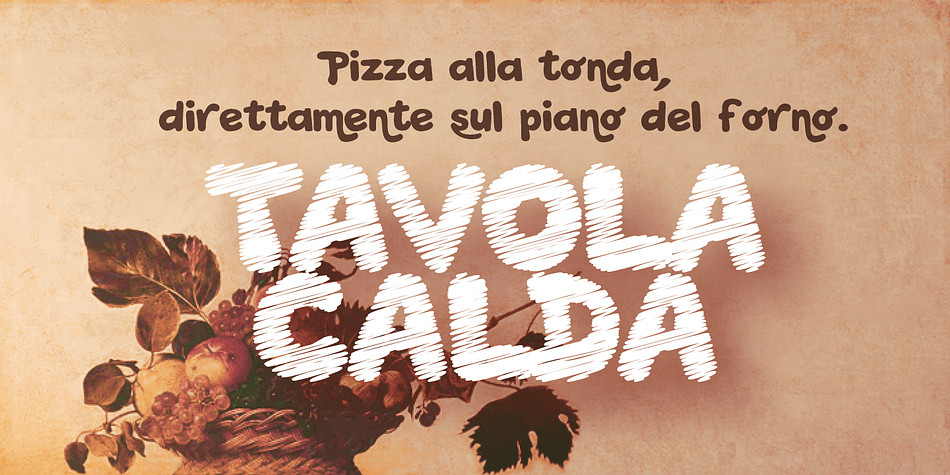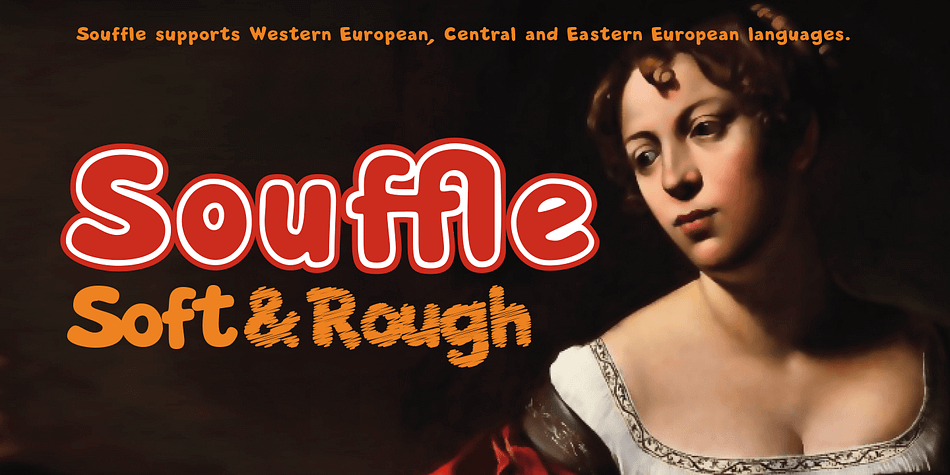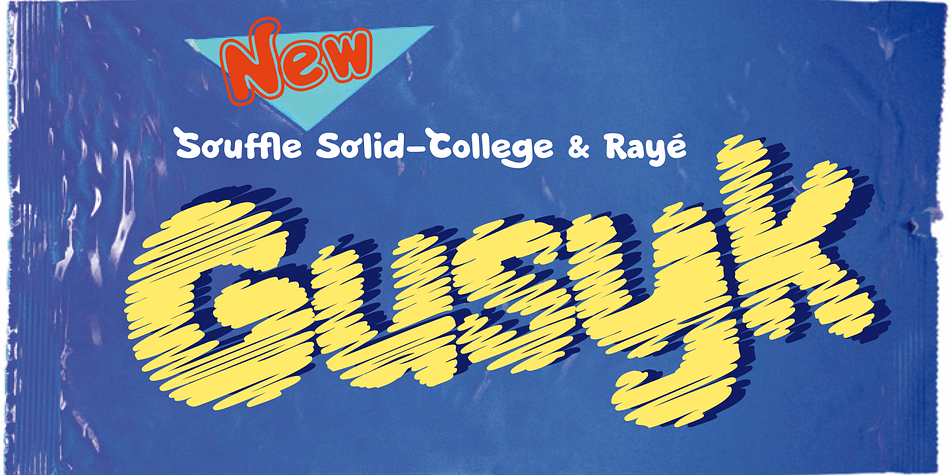
Designed by Carine de Wandeleer, Souffle is a comic and hand display font family. This typeface has three styles and was published by Eurotypo.
Souffle fonts are carefully hand-drawn made, with different letter shapes, full of ligatures, and stylistic alternates that will provide great flexibility for your designs.
They come in three versions: Solid, College and Rayé (rough sketched); Including diacritics for CE languages.
They fit perfect for logos and packaging design, posters, children books and many other purposes.